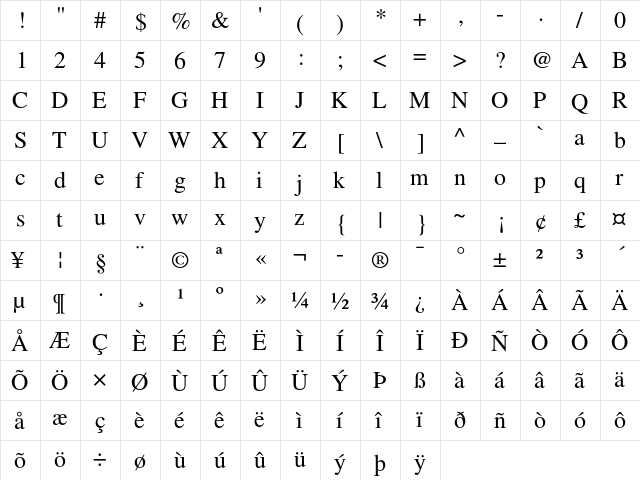
Tempora LGC Uni Regular
Design Context for Tempora LGC Uni Typeface
Tempora LGC Uni takes a measured approach to typography — its balanced proportions and neutral character make it a reliable workhorse for both digital and print work.